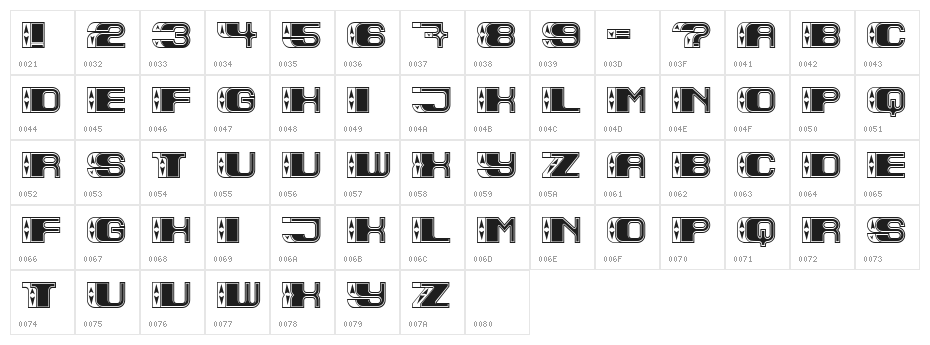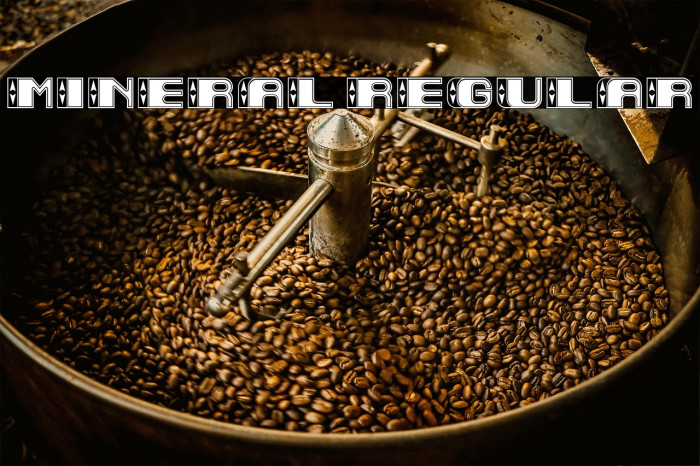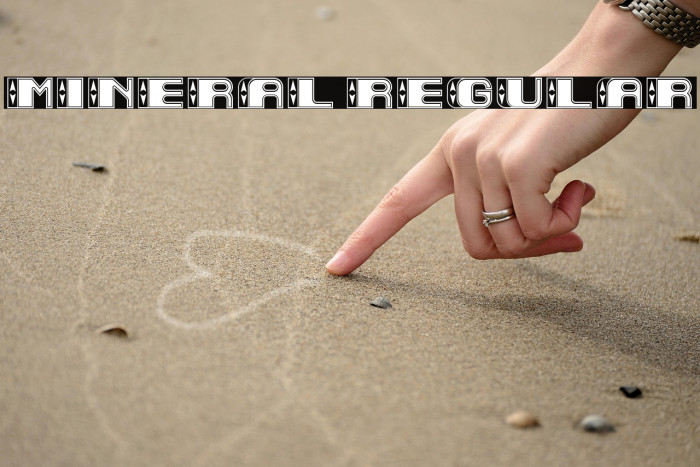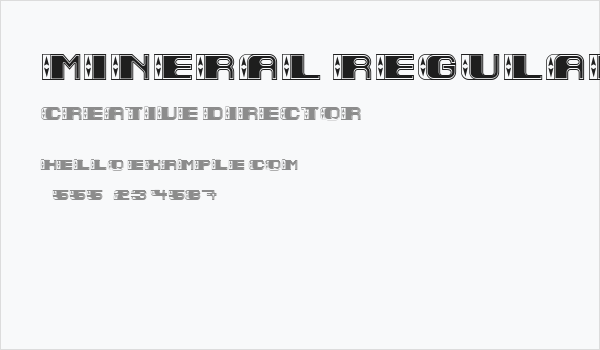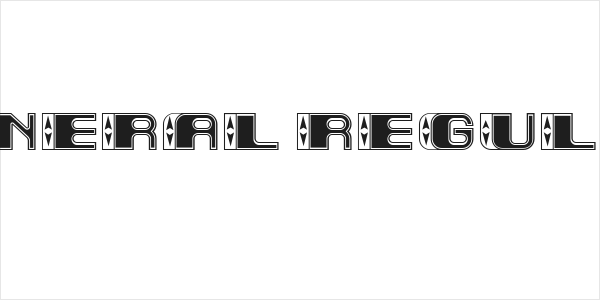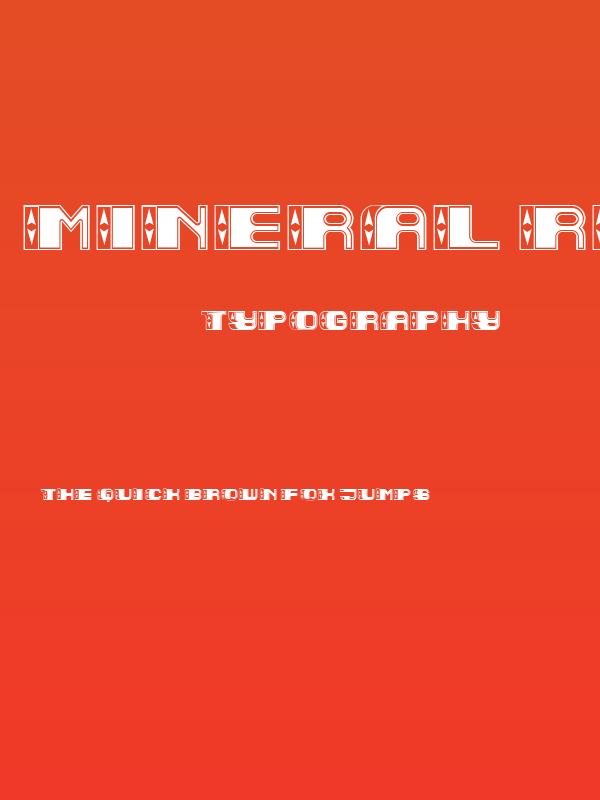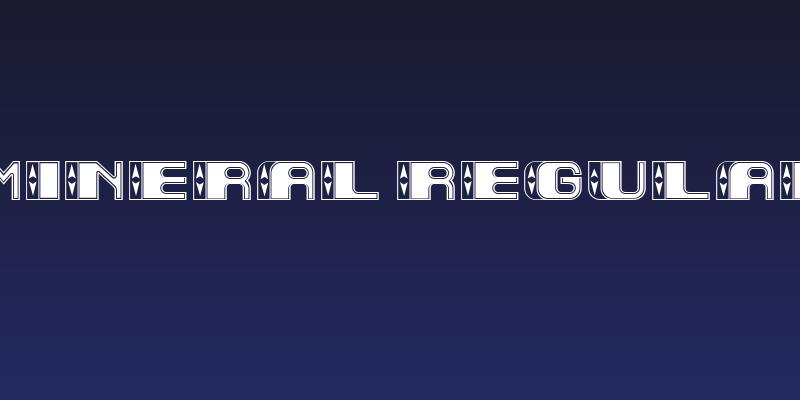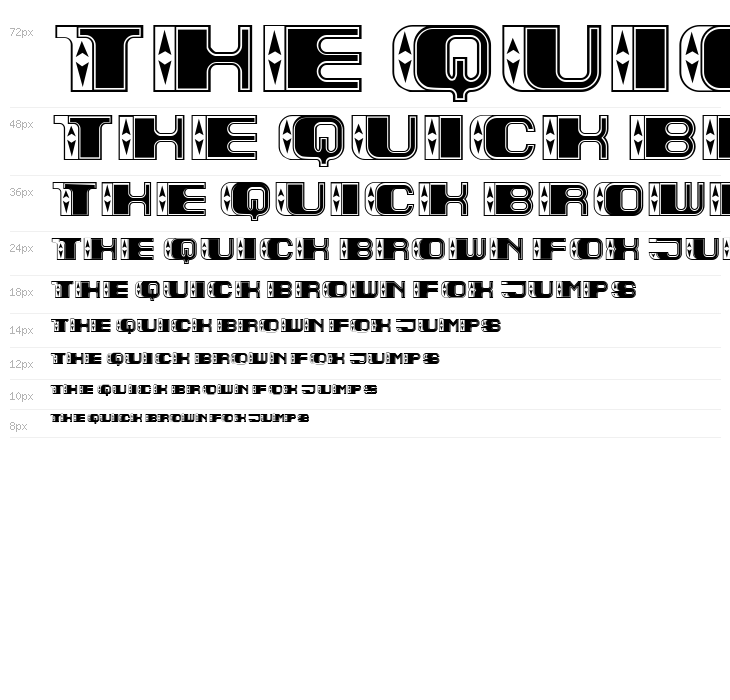
Mineral Regular Font
Mineral Regular Description
This font features a bold, geometric design with a distinct industrial feel. Each character is constructed with a combination of solid and outlined elements, creating a striking contrast that draws attention. The uppercase and lowercase letters share a consistent style, with angular shapes and sharp edges. The numbers and special characters maintain this cohesive look, making the font versatile for various applications. Its unique style is reminiscent of futuristic or sci-fi themes, making it ideal for projects that require a modern and edgy aesthetic.
| Proposed Projects | Ideal for branding, posters, album covers, and sci-fi themed designs. |